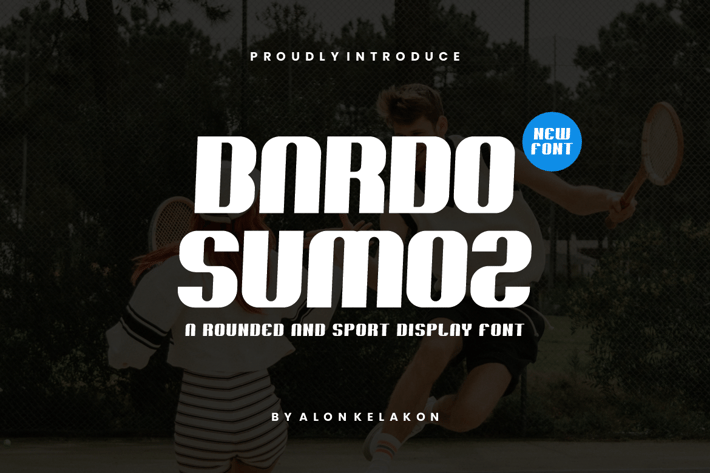
Bardo Sumoz - Rounded Sport Font
Bardo Sumoz - Rounded Sport Font Font is unique . Ready to use for your design like labeling, movie sceen, poster, movie title, gigs, album covers, logos, and much more.